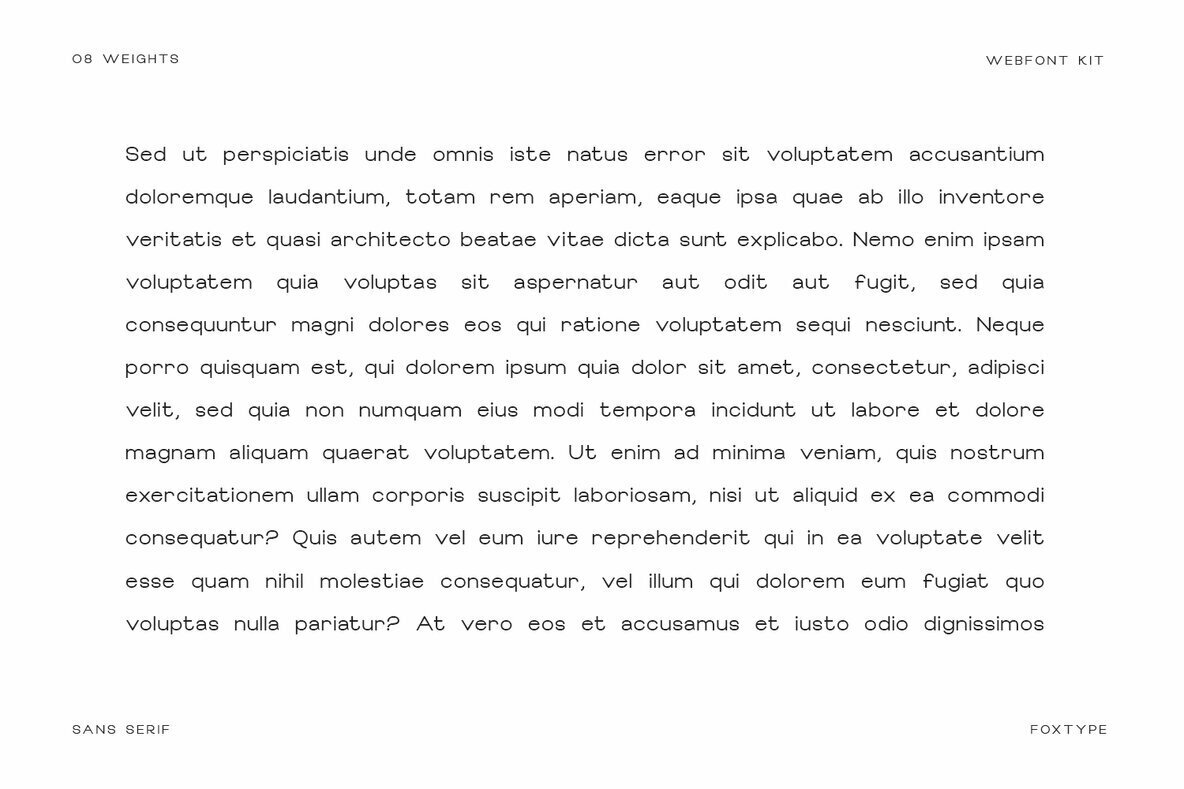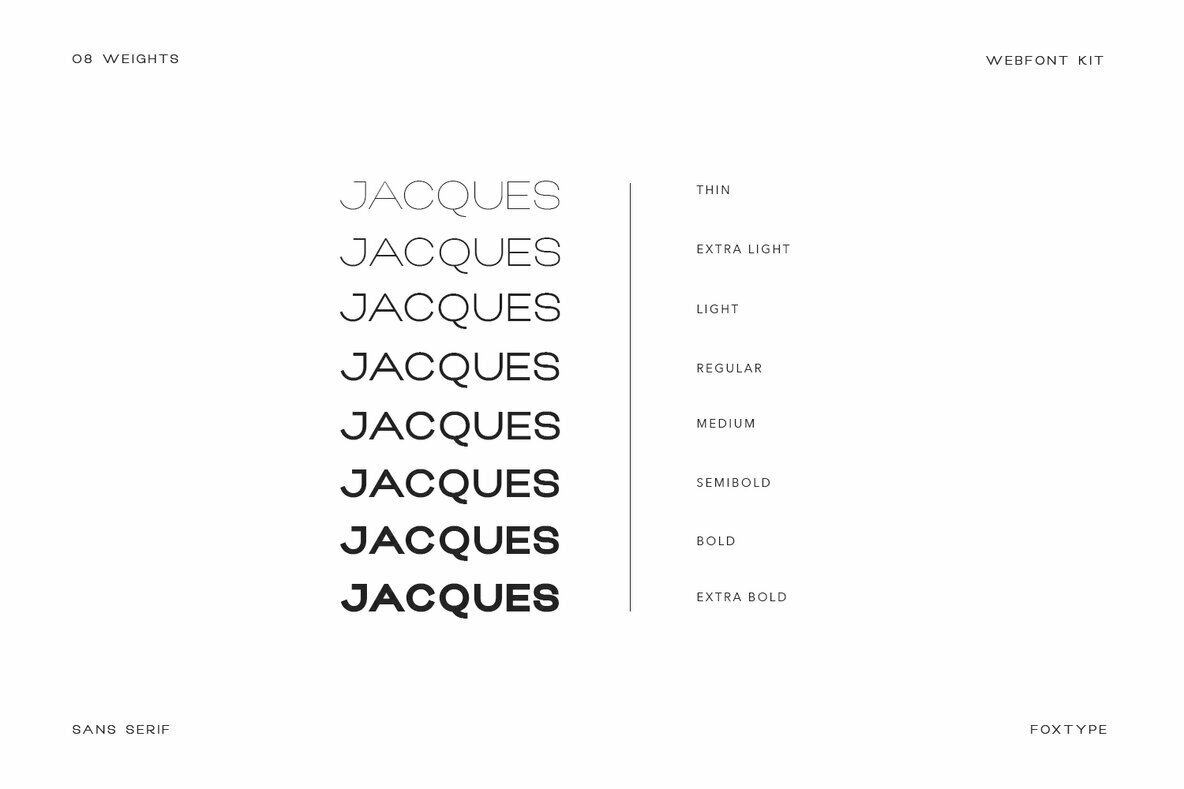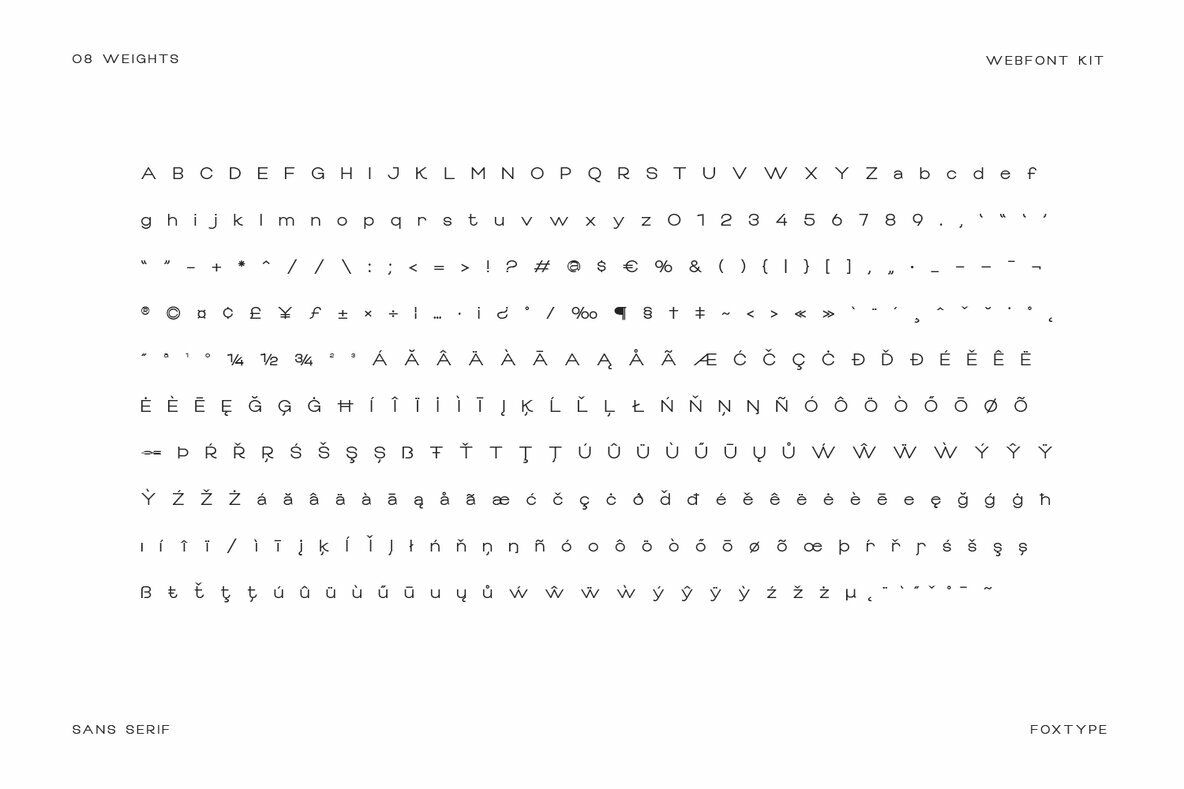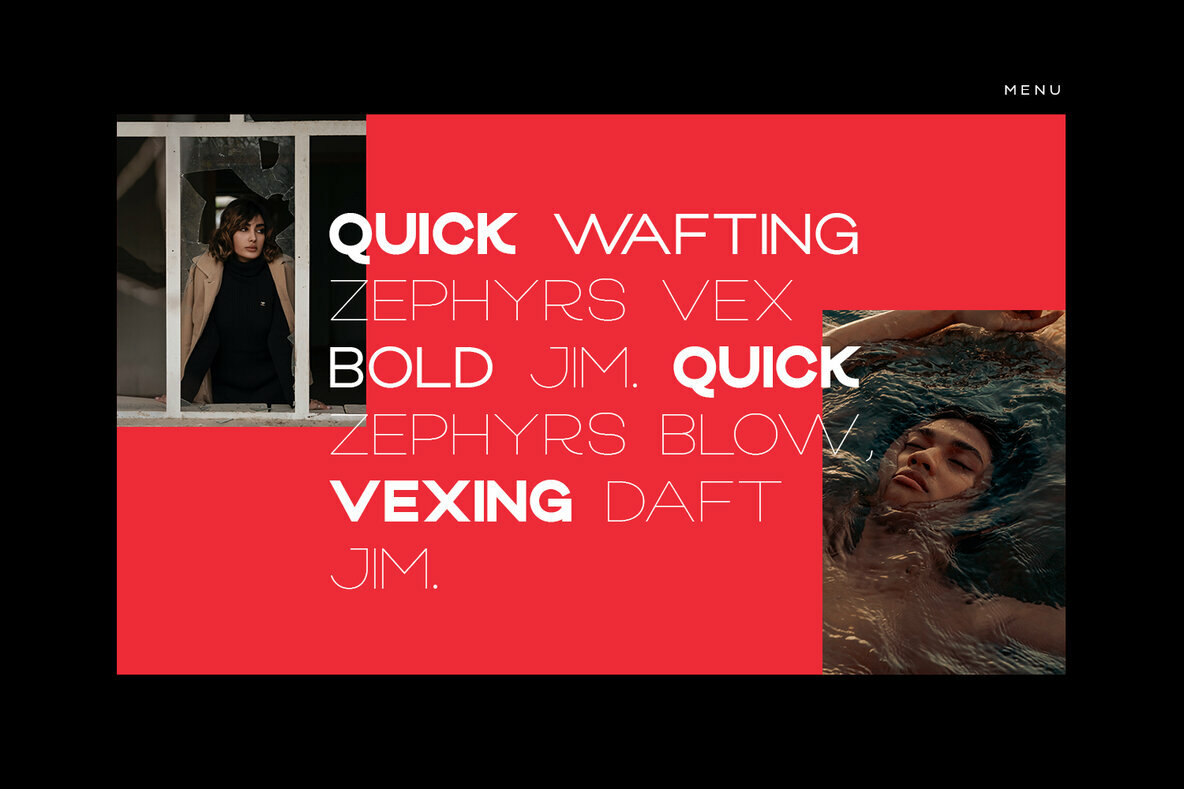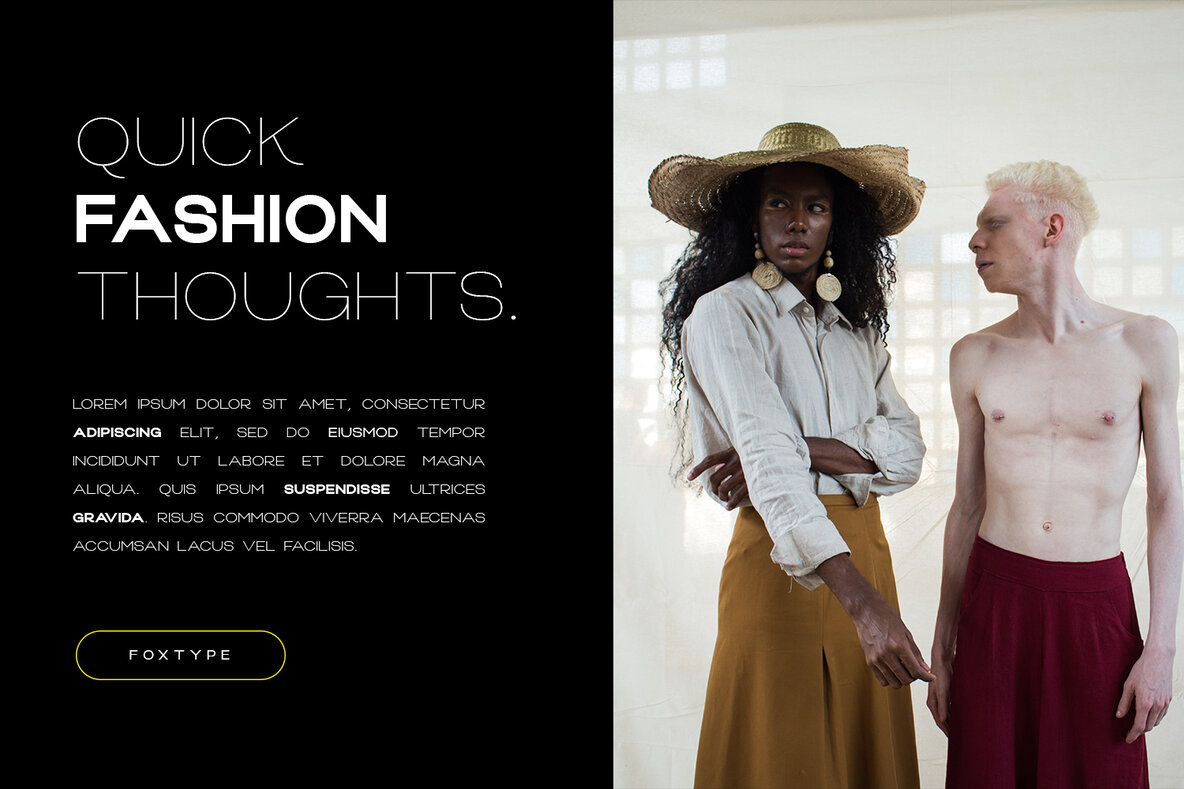
Jacques Display Font
Jacques Display is a modern, elegant typeface offering a unique blend of style and functionality. This font thrives in both large and small sizes, making it ideal for a variety of projects, from bold branding to refined headlines. Its robust capitals and smooth, open lowercase letters deliver a warm minimalism that remains easy to read, allowing for effortless application across diverse design contexts.Jacques Display: Sophisticated and Versatile Typeface